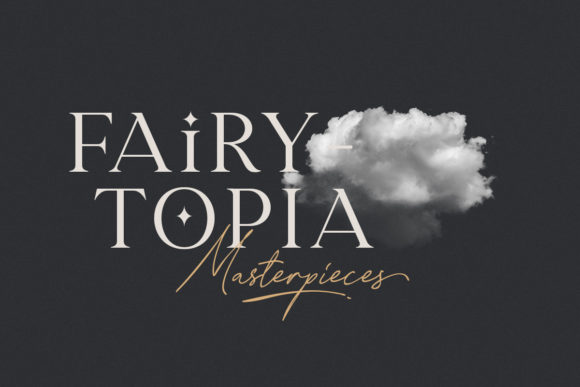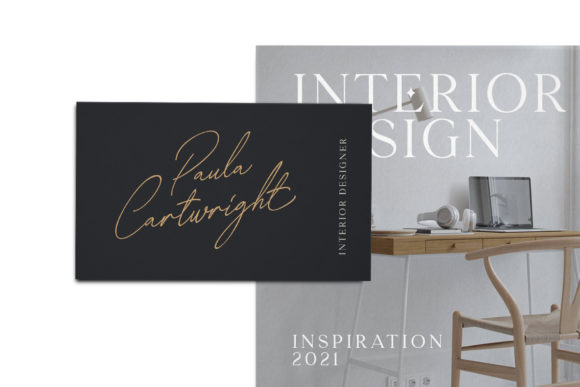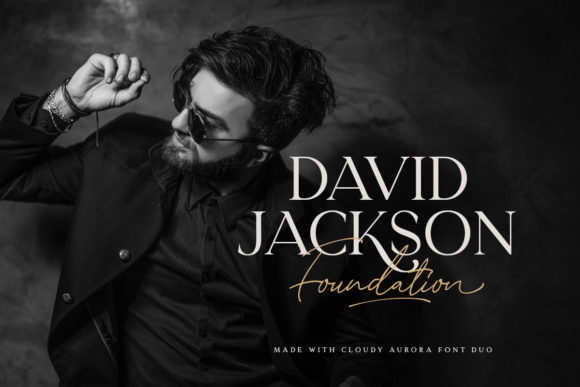
Cloudy Aurora Font: Elegant Serif & Script for Wedding Invitations!
About the Cloudy Aurora Font
Elevate your designs with Cloudy Aurora Font, a font that combines sophistication with readability. Cloudy Aurora is a spectacular duo font (serif and script). Incredibly versatile, this font fits a wide pool of designs, elevating them to the highest levels. Add this font to your favorite creative ideas and notice how it makes them come alive!
Cloudy Aurora’s elegant serif and flowing script work best for headlines, logos, short text blocks on invitations or packaging, and stylish posters. Its decorative nature makes it less suitable for body text or lengthy paragraphs, as readability suffers. Avoid using it in user interfaces or applications requiring high levels of legibility.
The font possesses a sophisticated yet romantic personality. It’s ideal for brands projecting luxury, creativity, or a touch of vintage charm. Consider pairing the serif with a clean sans-serif like Lato for balance, or the script with a geometric sans-serif like Montserrat for a modern contrast. For a more cohesive feel, use both the serif and script versions together, but strategically, to avoid visual clutter.
A classic serif like Garamond or a delicate script like Great Vibes could also complement Cloudy Aurora, depending on the desired level of formality.
Cloudy Aurora Font Usage Examples
Cloudy Aurora Font Example